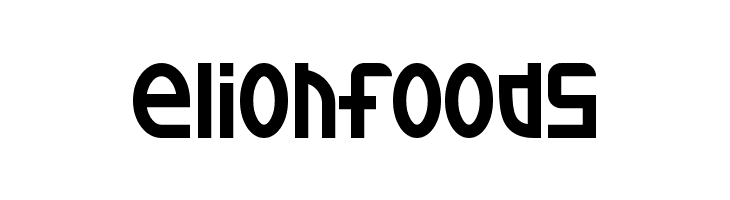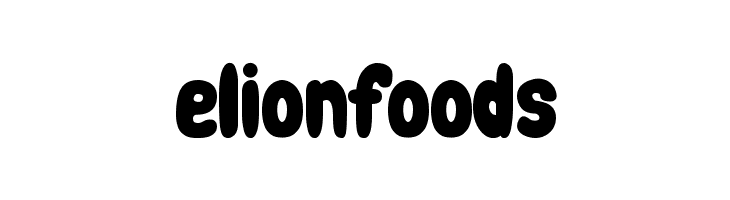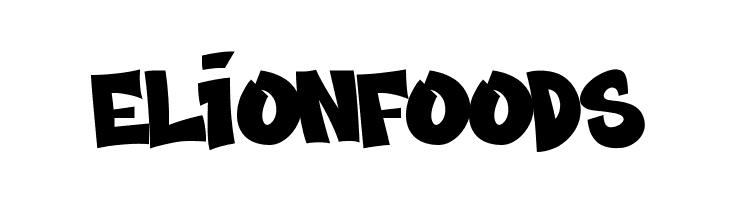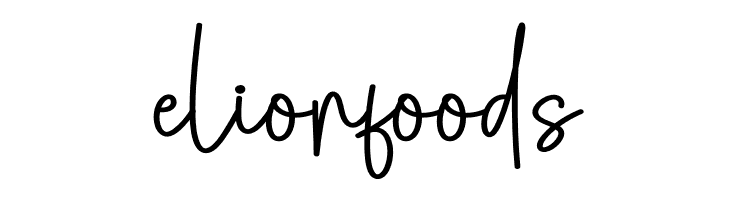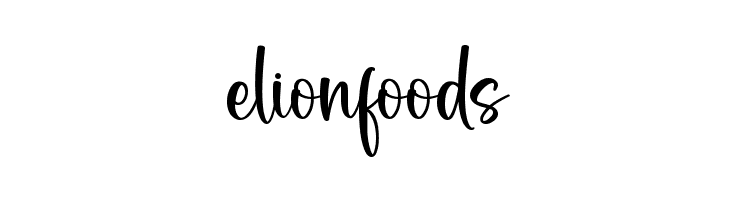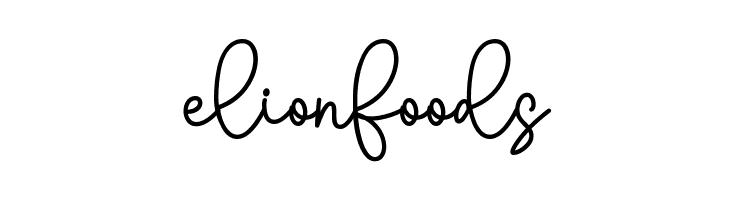
A bold, outlined font with a playful, bouncy style and a collegiate vibe.
A bold, playful handwritten font with consistent strokes and informal style.
A playful, bold, and cartoonish font with thick, uneven strokes and a hand-drawn feel.
A bold, elegant serif font with high contrast and pronounced serifs.
A bold, playful font with rounded, bubbly characters.
A bold, rounded font with a playful and robust style.
A bold, brush script font with dynamic, sweeping strokes and a hand-painted appearance.
A bold, angular font with a geometric and dynamic style.
An elegant, flowing script font with thin, elongated strokes and graceful curves.
A playful, handwritten font with rounded, bubbly characters.
A bold, dynamic script font with expressive, flowing characters.
A bold, playful font with exaggerated strokes and a cartoonish flair.
A bold slab serif font with strong, block-like serifs and a commanding presence.
A bold, flowing script font with a dynamic, handwritten style.
A playful, bold font with rounded edges and a modern, whimsical style.
An elegant serif font with high contrast and sharp serifs.
A bold, jagged, and textured font with an edgy, hand-drawn appearance.
A bold, brush script font with dynamic and expressive strokes.
A bold, playful font with thick, rounded characters and a hand-drawn feel.
A flowing, cursive script font with elegant loops and a handwritten style.
A playful, bold font with rounded edges and a bubbly, retro style.
A sleek, narrow font with a modern and geometric design.
An elegant script font with fluid lines and graceful curves.
A bold, playful handwritten font with rounded strokes and a friendly appearance.
A bold, playful font with decorative patterns and textures.
An elegant and flowing script font with interconnected letterforms.
( Fonts by Variatype - Mukhlis Muhammad - Personal-use only. For commercial use please contact owner. )
A bold, playful handwritten font with a lively and informal style.
( Fonts by Bangkit Tri Setiadi - Personal-use only. For commercial use please contact owner. )
A bold, playful handwritten font with flowing strokes and rounded edges.
( Fonts by sixtwenty studio - Personal-use only. For commercial use please contact owner. )
A bold, geometric font with angular lines and a modern style.
( Fonts by Scratchones )
A playful, handwritten font with tall, narrow letters and a whimsical style.
A playful handwritten font with whimsical loops and curves.
A flowing, cursive script with elegant, sweeping strokes and a modern calligraphic style.
A lively, cursive font with interconnected, flowing strokes.